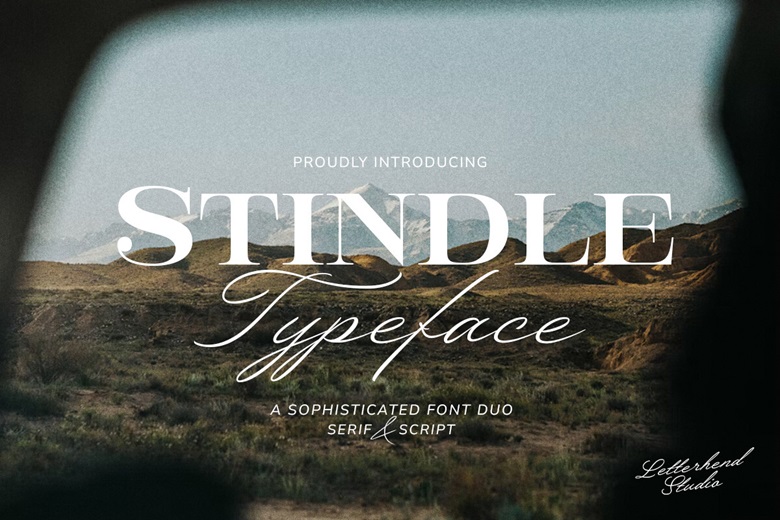
Stindle Font
Stindle Typeface is a well-rounded font with a streamlined, contrast-ridden serif and a flowing, handwritten script, magically fused into one. The serif is high, crisp, and contemporary, and it gives a headline a confident, structural underpinning, and the subordinate script gives a personal, romantic, and gracefully dynamic contrast to it through its swashes and connecting tails which are effortless.
This multi-principled duet is a foundation in quality branding, luxury wedding invitations, and watermarks on photographs and luxurious editorial design. The possibility to combine the authoritative serif with the tender feminine typeface produces immediately balanced and visually abund layouts. Stindell bleaches effortlessly between rough adventure branding and the high end fashion campaigns using Stindel to look strong in message and delicate in style.
Stindle Font Duo